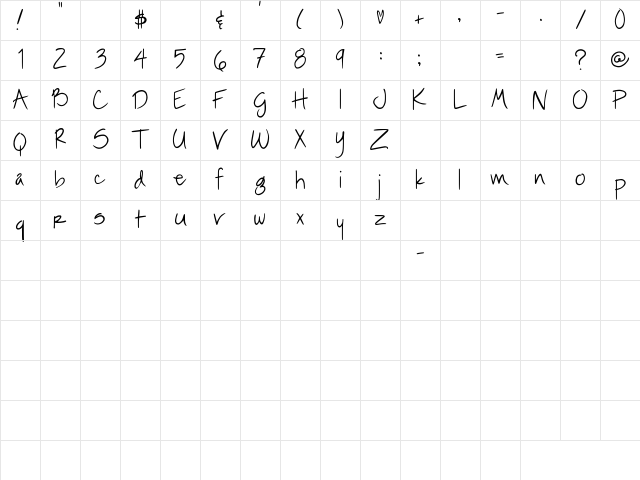
SBC Love Mom Regular
Design Context for SBC Love Mom
SBC Love Mom is a composed and adaptable typeface that performs quietly and consistently across a wide range of design contexts.